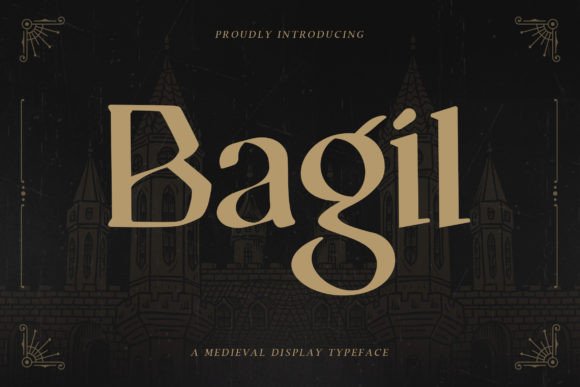
Introducing Bagil Font, the ultimate medieval display typeface that will transport your designs back to the enchanting era of the Middle Ages. This font, created by the brilliant minds at TypeFactory, is a true masterpiece that exudes the charm and character of a bygone era.
With its unique and intricate design, Bagil Font is the perfect choice for projects that crave a touch of old-world elegance. Whether you're working on book covers, posters, packaging, logos, or any other creative endeavor, this versatile font will elevate your designs to new heights.
Imagine the impact your project will have with Bagil Font's striking and decorative elements. Its mesmerizing curves and delicate details will captivate your audience, leaving them in awe of your artistic prowess. Let your designs stand out from the crowd and make a lasting impression.
But Bagil Font is not just visually stunning, it also carries a rich history and evokes a sense of nostalgia. Each letter is meticulously crafted to evoke the essence of the Middle Ages, transporting your audience to a world filled with knights, castles, and chivalry. It's a font that tells a story and adds depth to your designs.